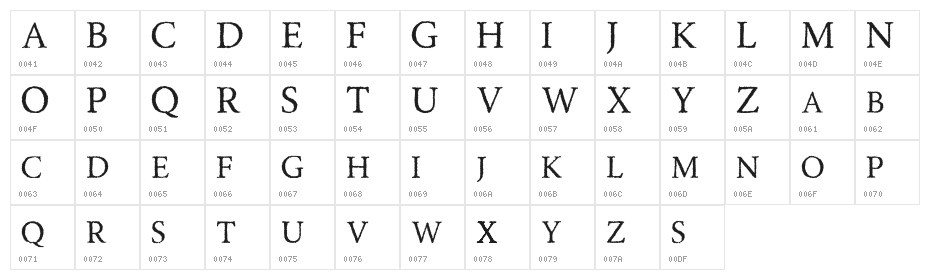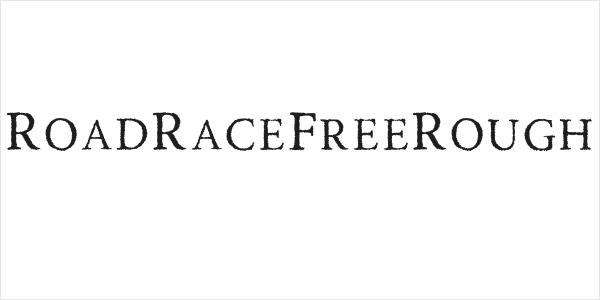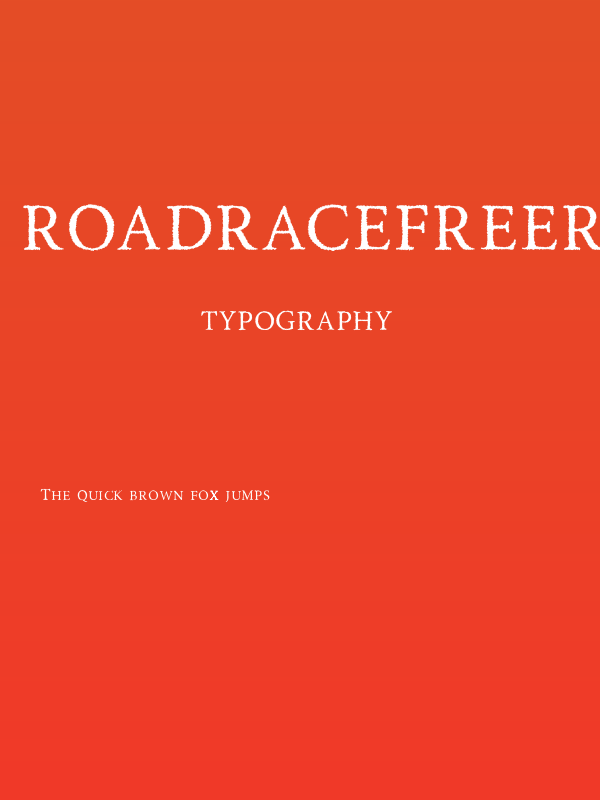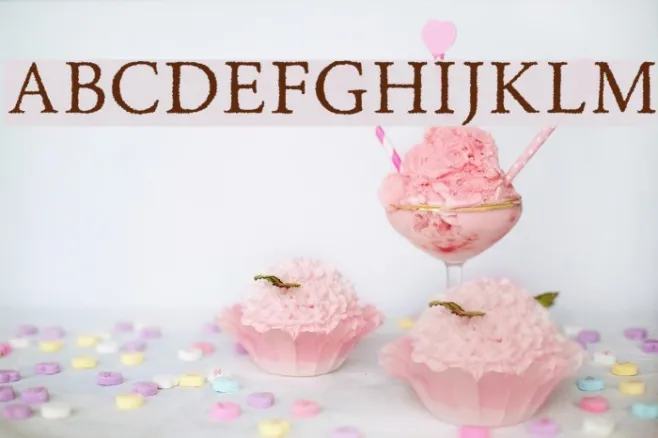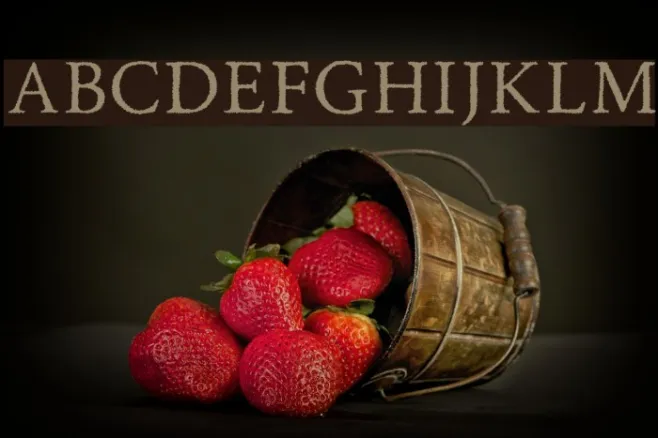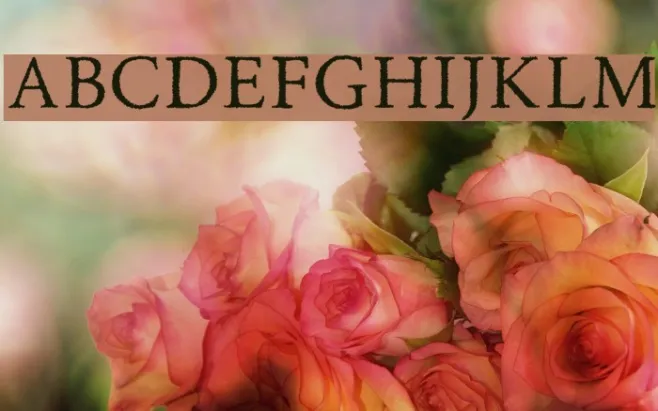
RoadRaceFree-Rough Font
RoadRaceFree-Rough Description
This font exhibits a rugged, textured appearance, giving it a distinctive, hand-crafted feel. The uppercase letters are bold and commanding, with slightly irregular edges that suggest a vintage, worn look. The strokes are consistent in width, providing a balanced and harmonious appearance. The overall style is reminiscent of classic serif fonts but with a modern twist due to its rough texture. This font is ideal for projects that require a touch of authenticity and character, such as branding for artisanal products or vintage-themed designs.
| Proposed Projects | Ideal for branding, packaging, posters, and vintage-themed designs. |